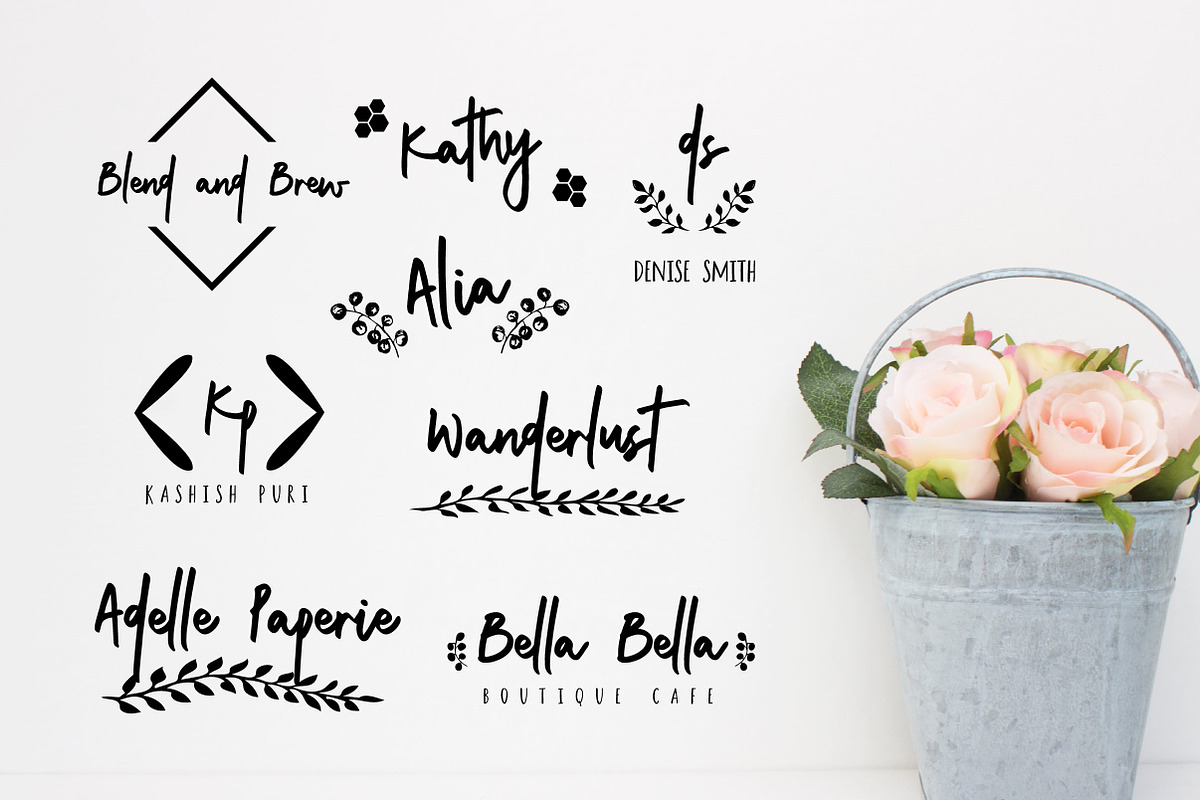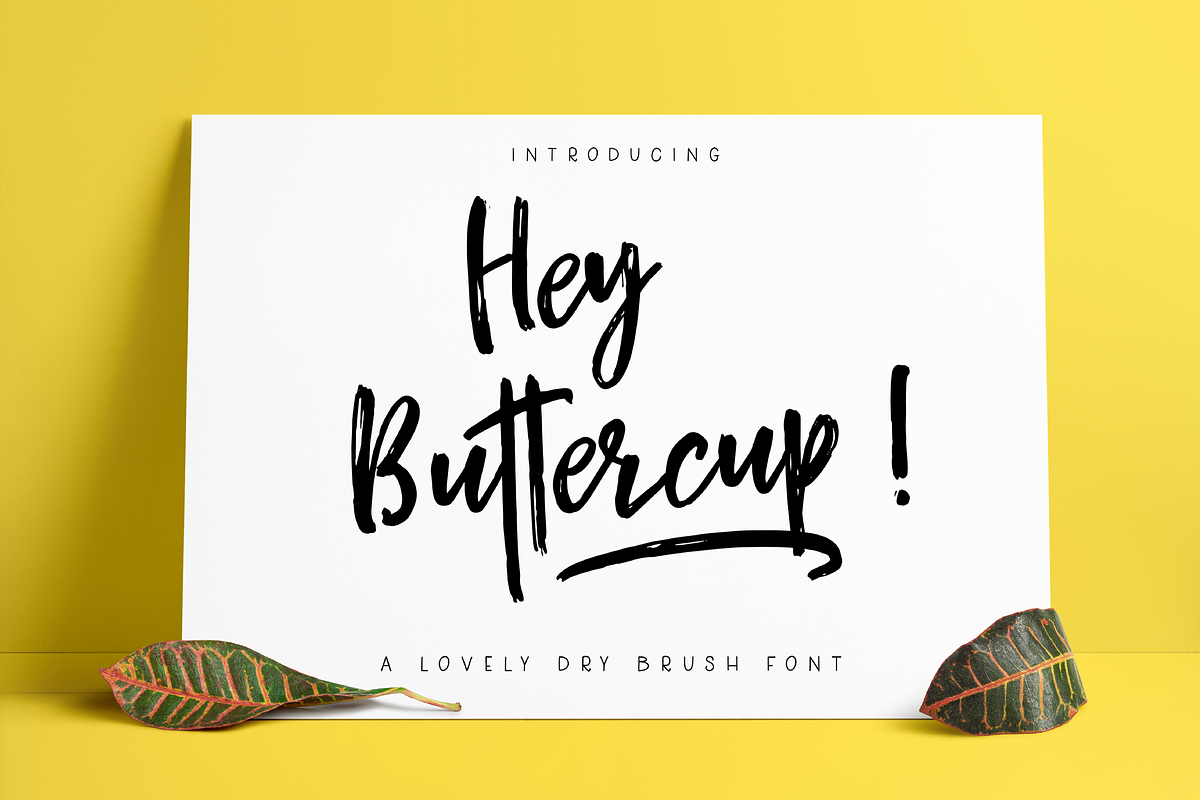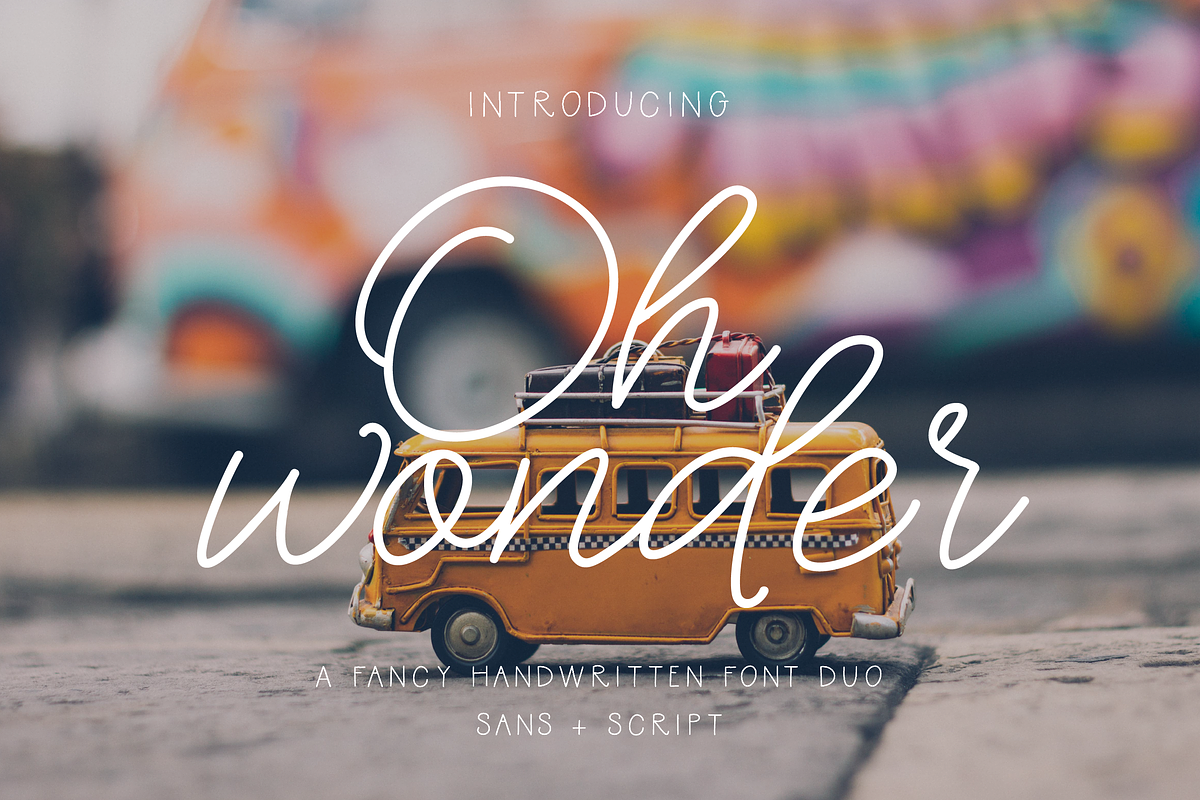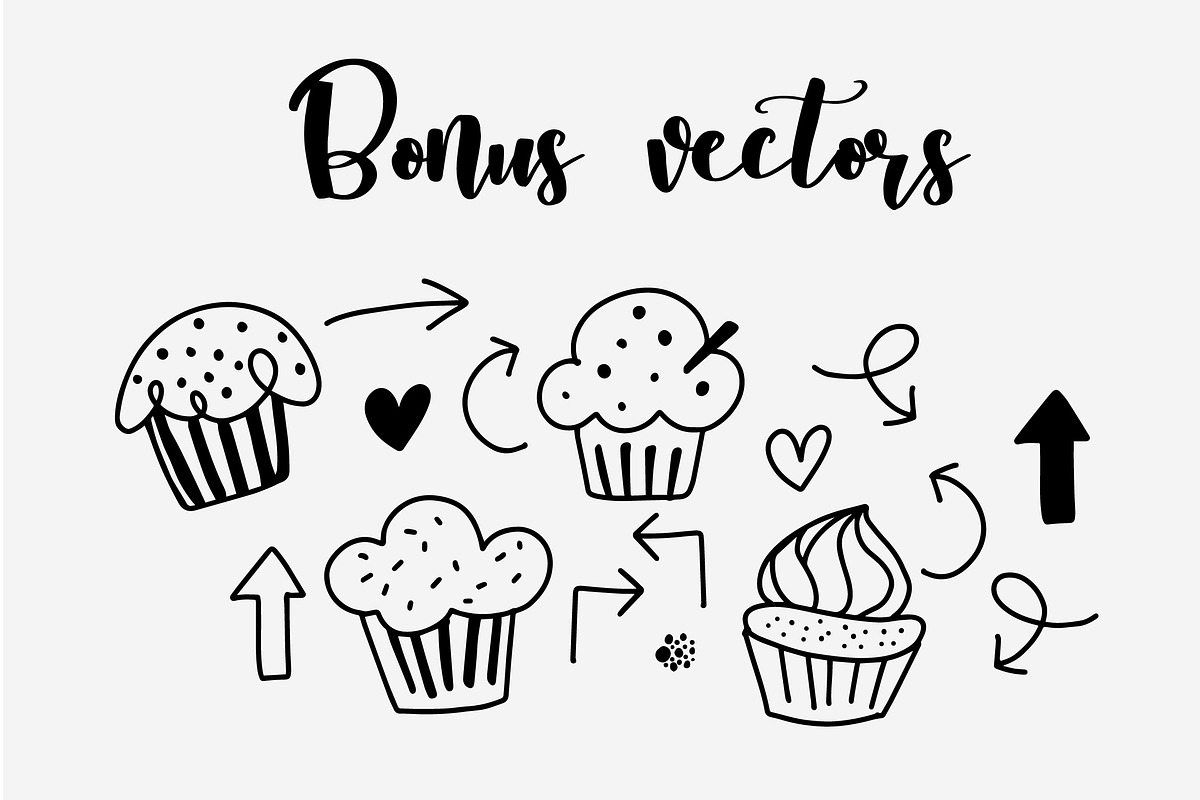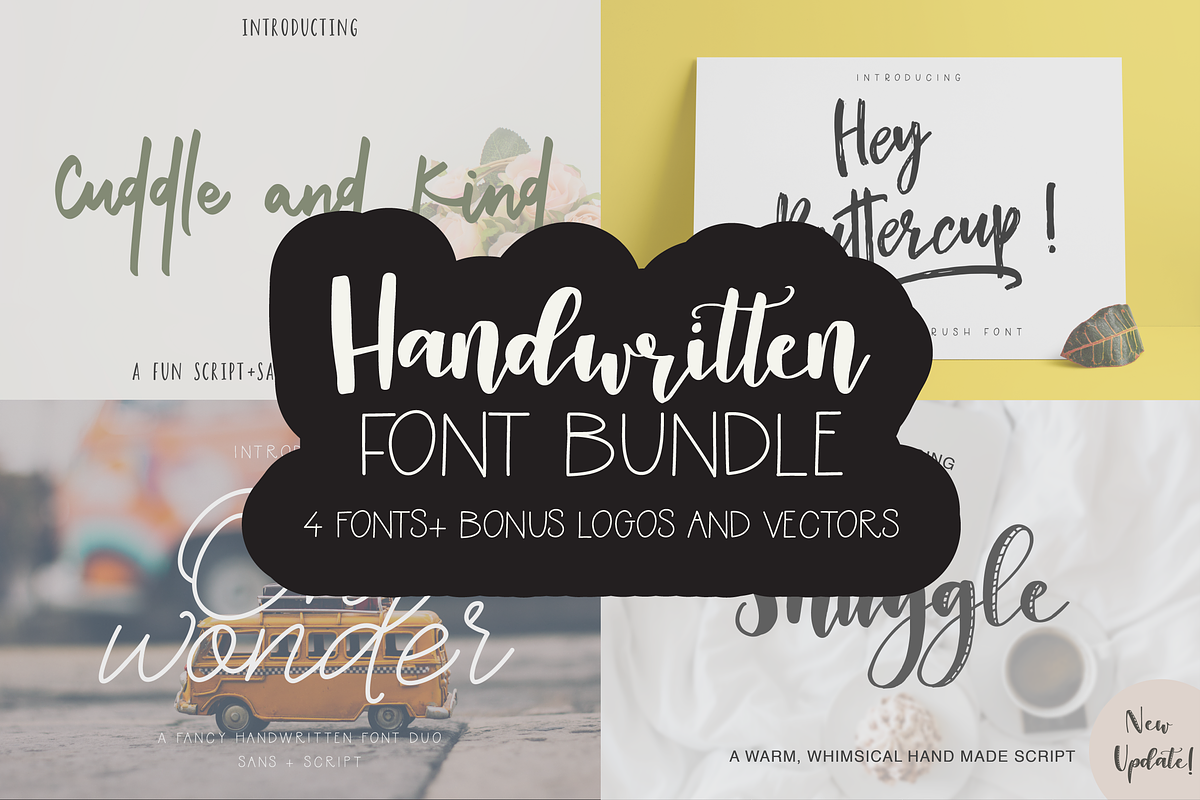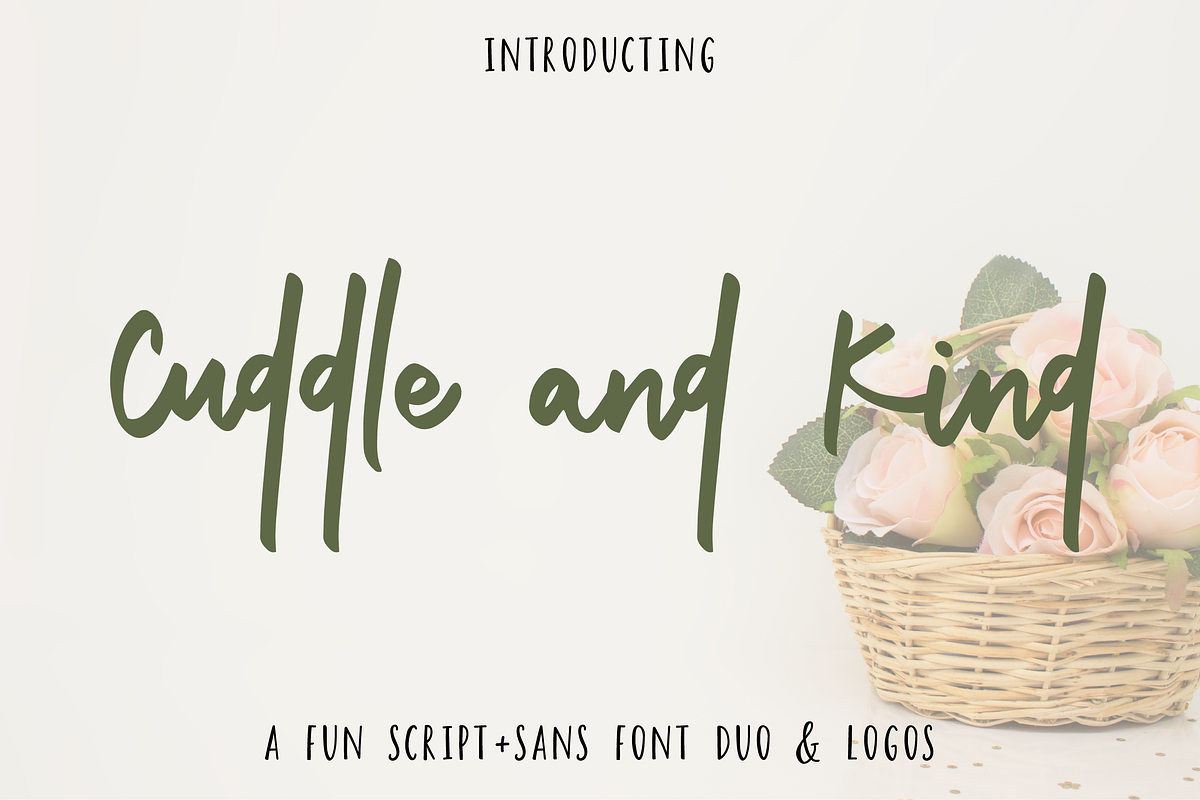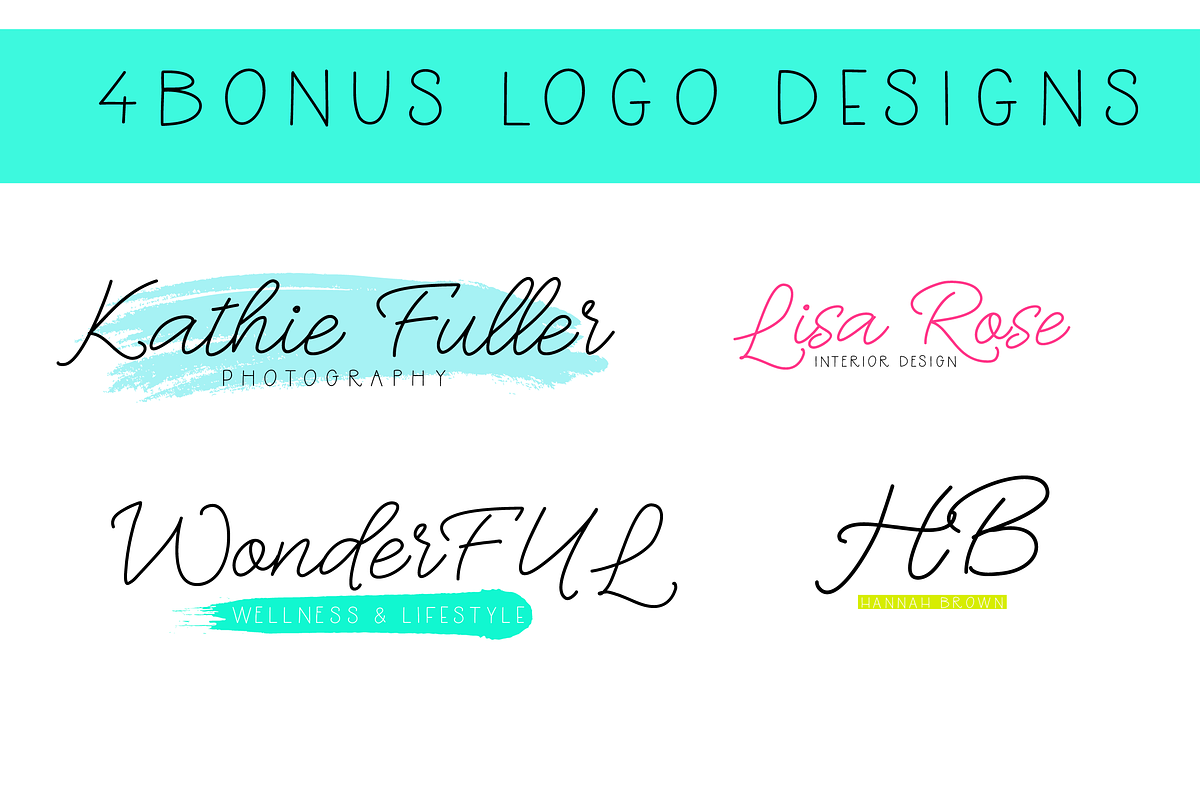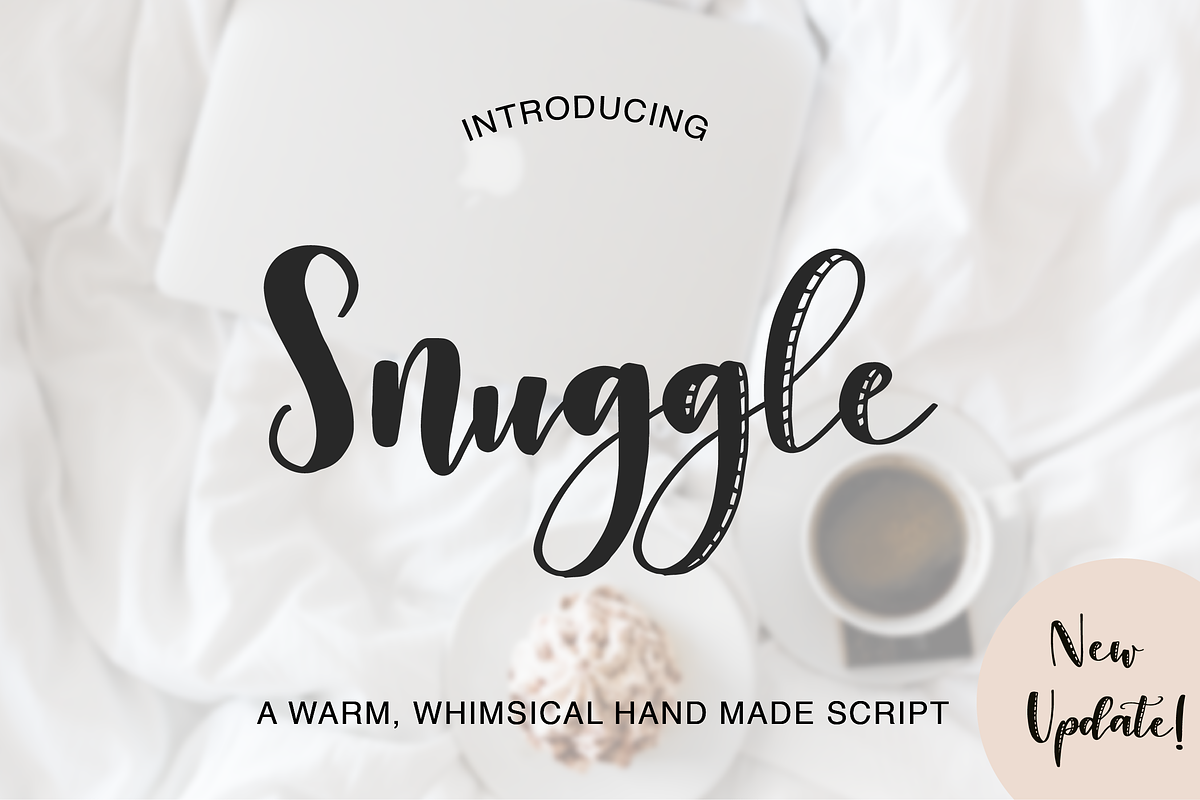
Handwritten Font Bundle
Introducing Handwritten Font Bundle that includes 4 different style of fonts. This bundle is perfect for all design projects.
Cuddle and Kind - a warm and fun font duo that includes a script font as well as a sans serif font to make font pairing easy. ( )
Oh Wonder - a two font family that includes a monoline fancy hand written cursive script in regular and upright and a monoline sans serif font, available in regular and bold. (
- Hey Buttercup! - a classy, brush textured handwritten font. (
- Snuggle - a delightfully whimsical hand made font. (
- Bonus: Vectors and pre-made logo templates included.